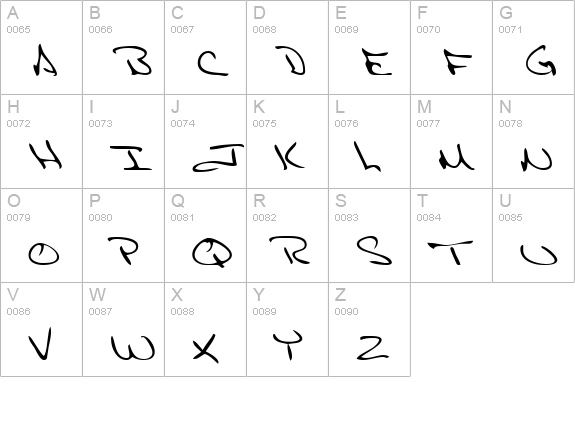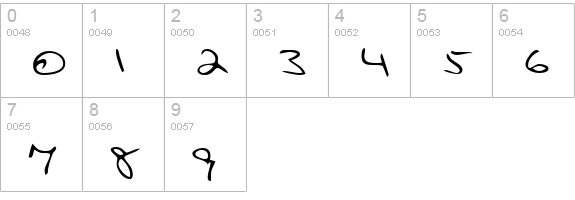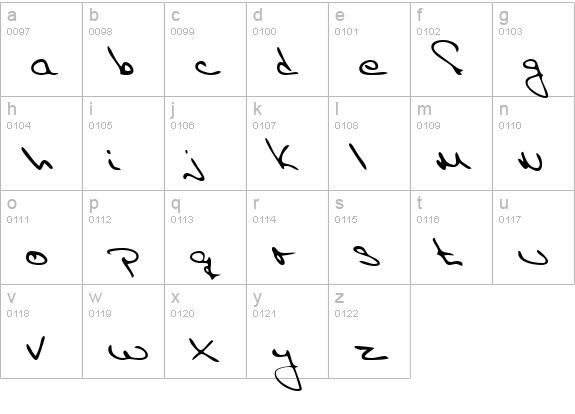
EricasHand Regular is the standard, neutral variant in the EricasHand typeface family \xE2\x80\x94 well suited to general body text, paragraphs, and standard typographic work.
EricasHand Regular font is a charming and versatile typeface that exudes a personal touch and warmth. With its handwritten style and smooth curves, this font is perfect for adding a friendly and approachable feel to your designs. Whether you're creating invitations, greeting cards, or social media graphics, EricasHand Regular font will give your projects a unique and inviting look. Best of all, EricasHand Regular font is available for free download at FontsMarket.com. This means you can easily access this delightful font and use it in your personal and commercial projects without any cost. So go ahead and enhance your designs with the warmth and character of EricasHand Regular font today!